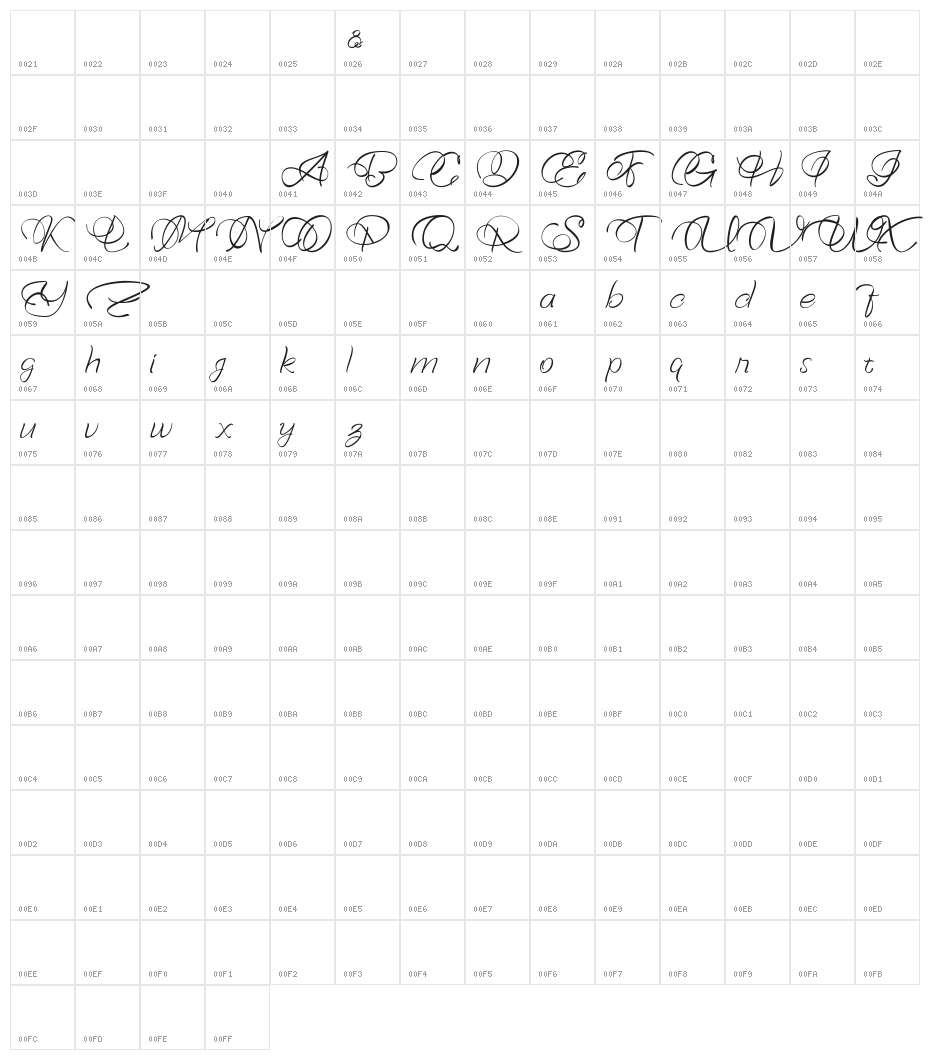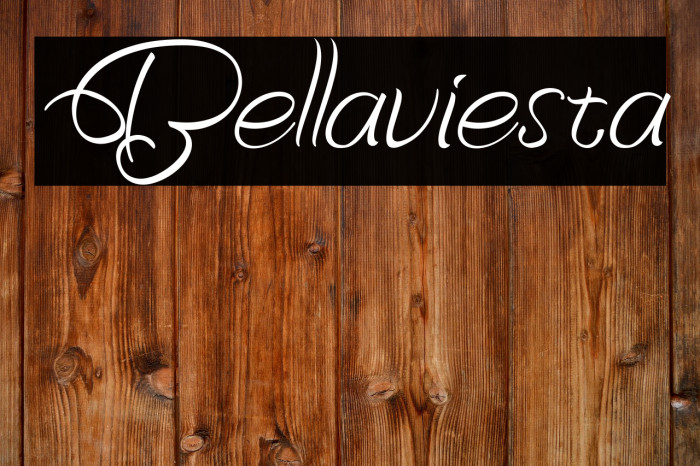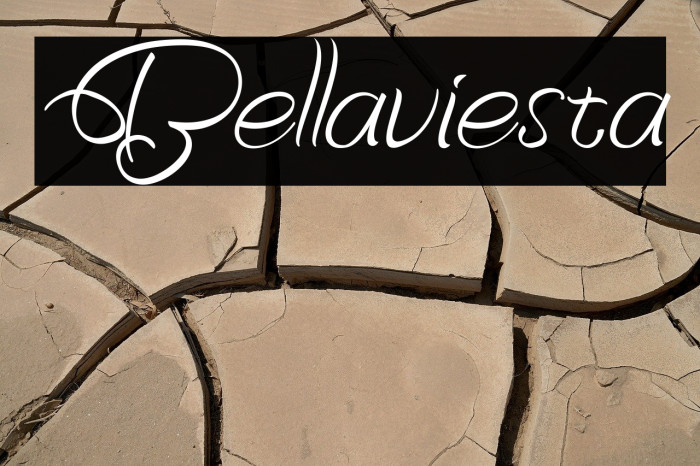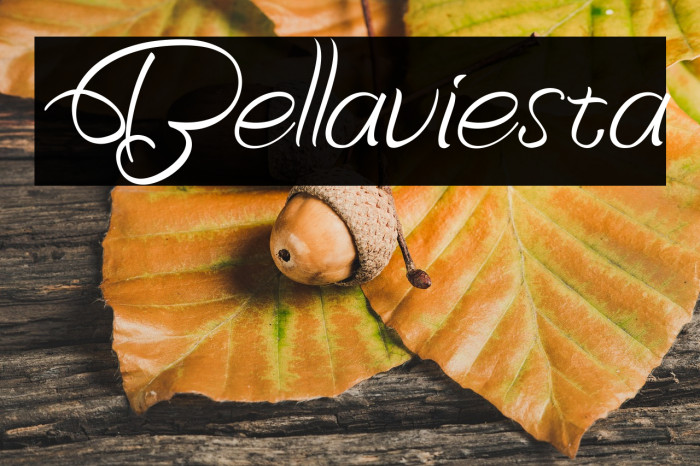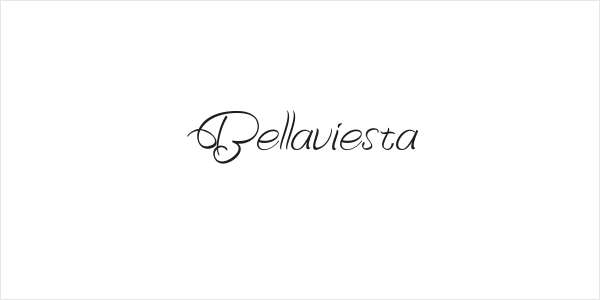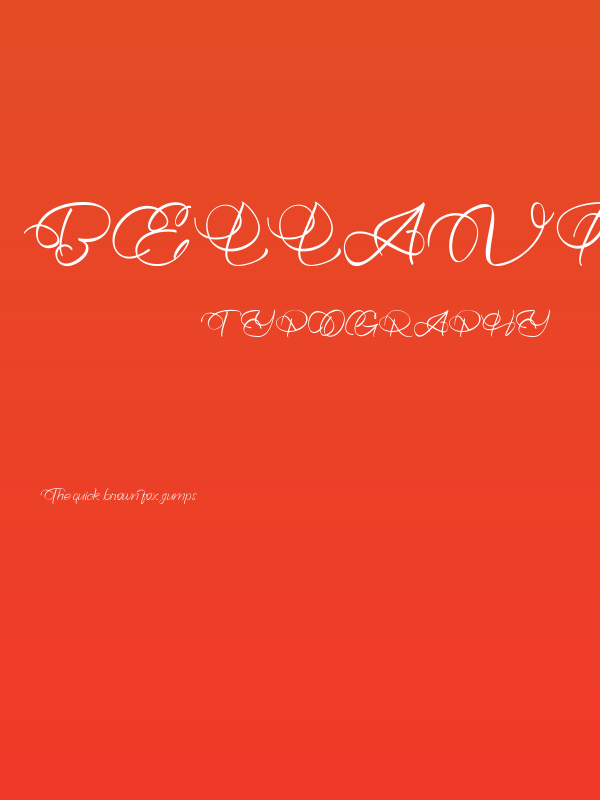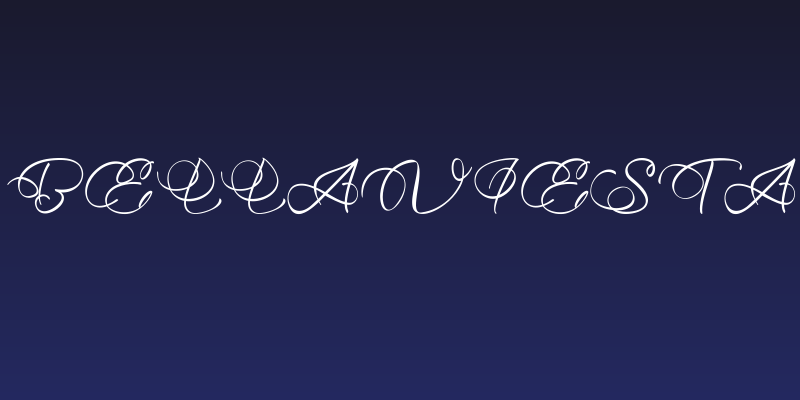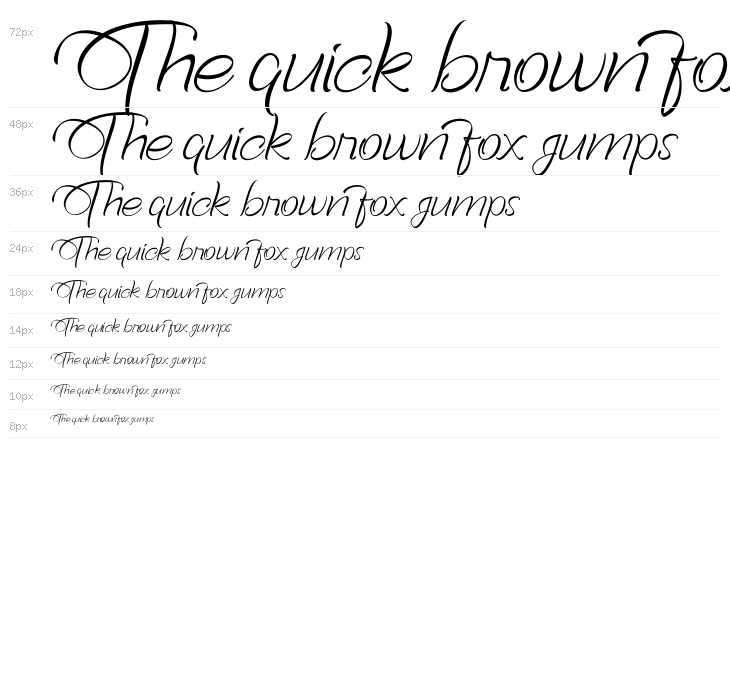
Bellaviesta Font
Bellaviesta Description
This elegant script font features a flowing, cursive style with intricate loops and swashes, giving it a sophisticated and artistic appearance. The uppercase letters are particularly ornate, with elaborate flourishes that add a touch of luxury and refinement. The lowercase letters maintain a consistent fluidity, making the text appear seamless and connected. The font's overall design is both graceful and dynamic, suitable for creating a sense of elegance and charm. The special character '&' is uniquely styled, complementing the overall aesthetic.
| Overall Style | Elegant |
| Use Case | Logos, Invitations, Decorative text |
| Proposed Projects | Ideal for wedding invitations, luxury branding, elegant stationery, and artistic projects. |